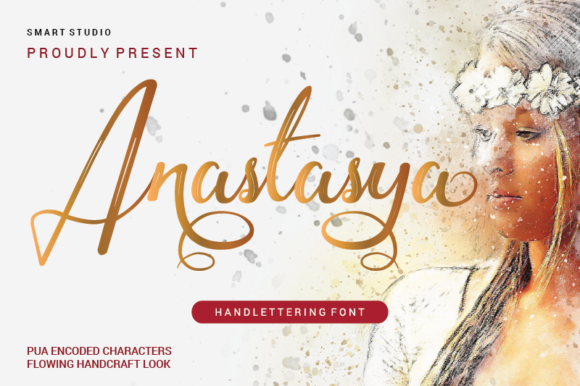
Introducing Anastasya Font: Elevate Your Designs with Elegance and Flair
In the world of typography, few fonts manage to capture the essence of elegance and sophistication as effortlessly as Anastasya. This delicate, elegant, and flowing handwritten font has been making waves among designers and crafters alike, and for good reason. Anastasya’s beautiful and well-balanced characters make it an incredibly versatile addition to any design project, allowing it to seamlessly match a wide pool of designs. Whether you’re working on a branding project, crafting a bespoke invitation, or simply looking to add a touch of refinement to your digital creations, Anastasya is the perfect choice to bring your most creative ideas to life.
The Characteristics of Anastasya Font
So, what sets Anastasya apart from other fonts? The answer lies in its unique blend of delicacy and elegance. Each character in the Anastasya font is carefully crafted to exude a sense of refinement and poise, making it ideal for projects where a touch of sophistication is desired. The flowing nature of the font adds a dynamic element, allowing it to dance across the page with a grace that’s hard to ignore. Whether used in headings, body text, or decorative elements, Anastasya brings a level of consistency and harmony that’s essential for creating visually appealing designs.
One of the standout features of Anastasya is its remarkable versatility. This font isn’t limited to a specific style or genre; instead, it can be effortlessly integrated into a wide range of design projects. From wedding invitations and event branding to packaging and digital content, Anastasya adapts with ease, enhancing each project with its unique charm. Its ability to complement both modern and traditional designs makes it a valuable addition to any designer’s toolkit, offering endless possibilities for creative expression.
Why Designers and Crafters Love Anastasya
Designers and crafters around the world have fallen in love with Anastasya for several reasons. Firstly, its aesthetic appeal is undeniable, bringing a level of elegance and sophistication to any project. Secondly, its versatility means that it can be used across a variety of applications, saving designers time and effort in searching for the perfect font. Finally, the font’s readability ensures that it remains effective even in smaller sizes, making it perfect for body text as well as headings.
Tips for Using Anastasya in Your Designs
- Pair it with contrasting fonts: Combine Anastasya with a bold, sans-serif font for a striking contrast that adds depth to your designs.
- Experiment with colors: While Anastasya looks stunning in classic black and white, don’t be afraid to experiment with colors that match your brand or project’s aesthetic.
- Play with sizes: Use Anastasya in various sizes to create visual hierarchy and emphasis in your designs.
- Emphasize details: Take advantage of Anastasya’s elegant lines and flourishes to add a touch of personality to your designs.
Anastasya font is more than just a beautiful typeface; it’s a tool for bringing your creative visions to life. With its delicate, elegant, and flowing design, Anastasya offers a world of possibilities for designers and crafters looking to add a touch of sophistication to their projects. Whether you’re working on a professional design or a personal craft project, Anastasya is sure to make your ideas shine. So why wait? Discover the beauty and versatility of Anastasya today and take your designs to the next level.